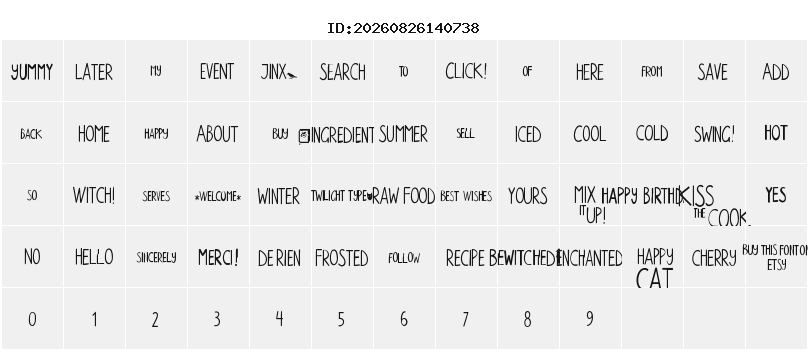
• Font Name: Walpurga
• Full Font Name: Walpurga
• Manufacturer: Julia Bausenhardt
Walpurga.ttf is a modern, elegant sans-serif font designed for ultimate readability and visual harmony. Perfect for branding, headlines, web design, and print materials.